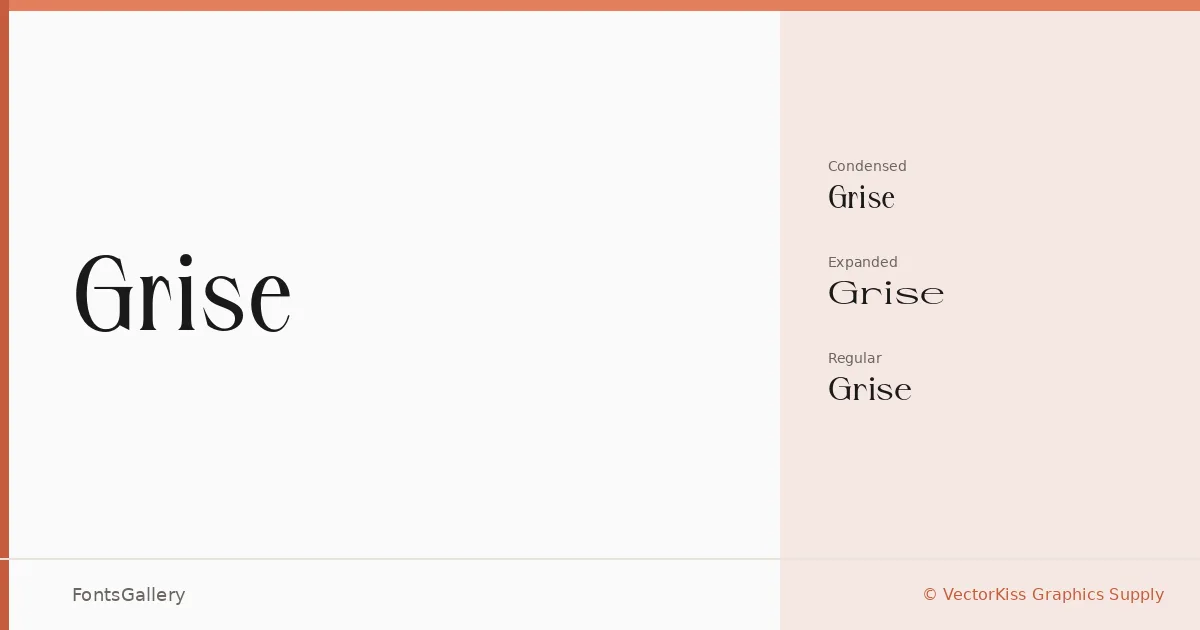
There is a quiet confidence in these serifs — the kind that comes from letterforms that know exactly how much weight to carry and where to let go. Designed by Oshtru for VectorKiss Graphics Supply, the family arrives in three distinct roman cuts: a Regular, a Condensed, and an Expanded, each delivered as an OTF file. That trio of proportions is the real story here, giving a single design enough range to serve very different layout demands without reaching for a separate face.
The overall mood sits at the intersection of classic elegance and a restrained modern sensibility — think high-contrast strokes and refined terminals rather than anything decorative or overwrought. The Condensed cut pulls things inward with an authoritative verticality well suited to tight columns or stacked logotypes, while the Expanded opens up into something more spacious and ceremonial. Set together or used separately, the three styles read as luxury without feeling ornate.
The family earns its keep in editorial work — book covers, magazine spreads, and website headers where a considered serif signals quality before a word is read. It is equally at home anchoring a brand identity or carrying a logotype that needs to hold across scales. For pairing, the neutrality of Helvetica keeps it grounded, while Ballmain, Alexandria, Batoshi, and Audex each offer contrasting texture or weight that can complement the family's structured character in layered compositions.